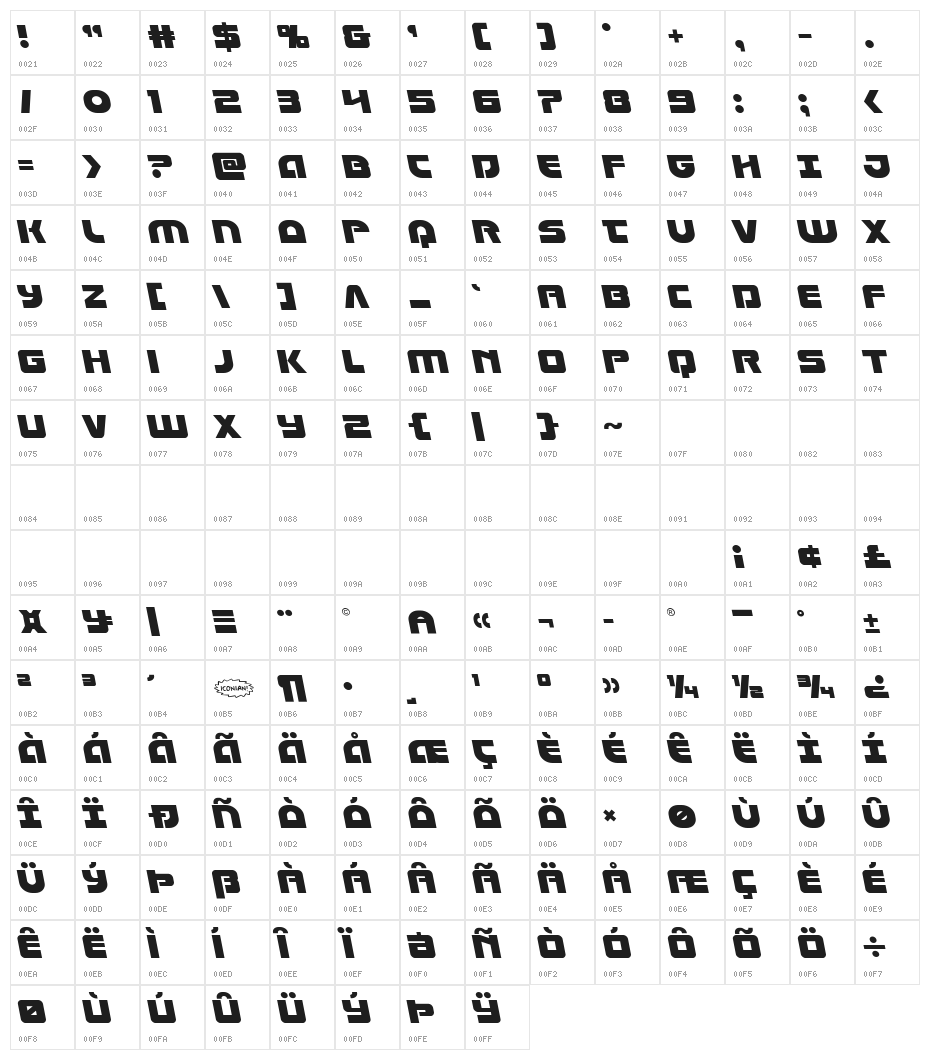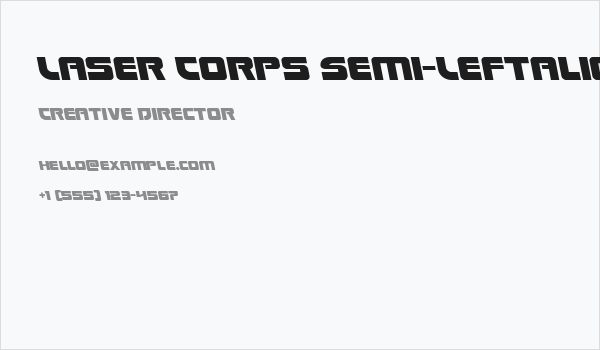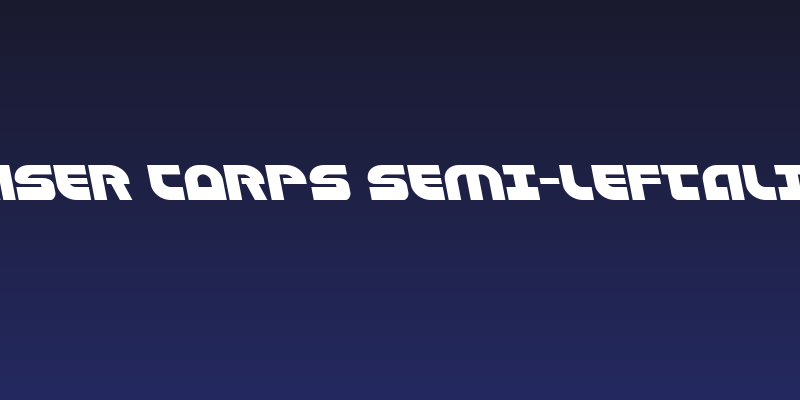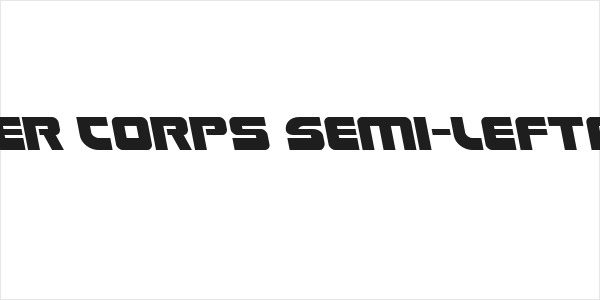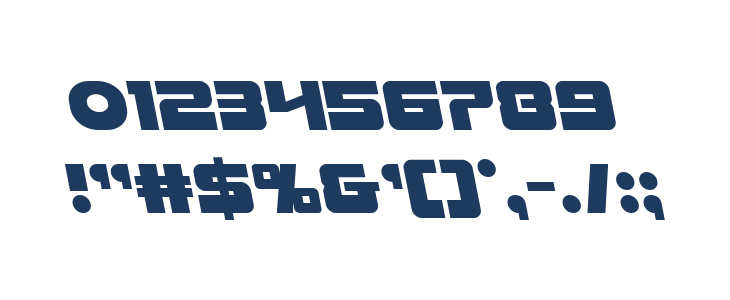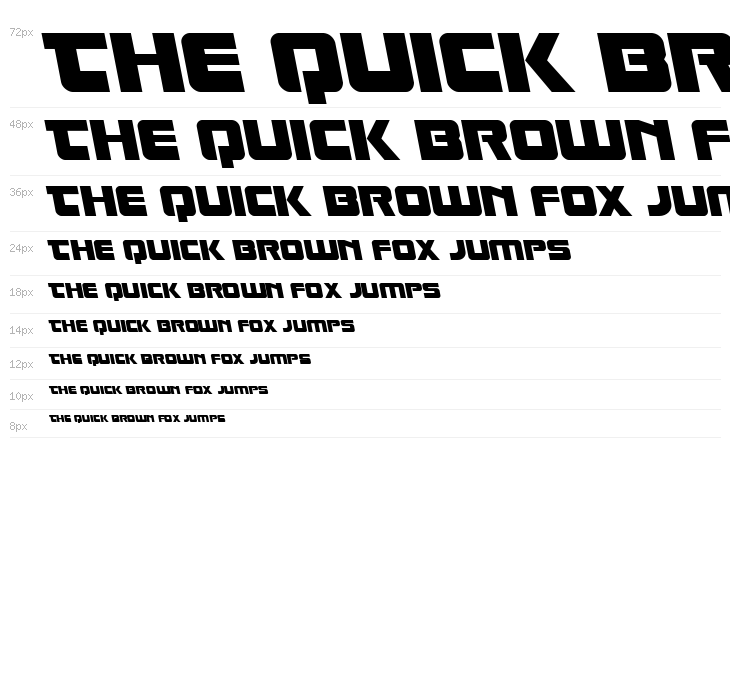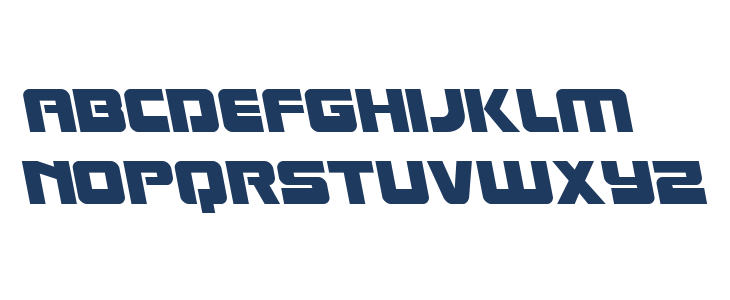
Laser Corps Semi-Leftalic Font
Laser Corps Semi-Leftalic Description
This font features a bold, futuristic design with a semi-italic slant, giving it a dynamic and forward-moving appearance. The characters are wide and blocky, with a geometric structure that emphasizes strength and modernity. The uppercase and lowercase letters maintain a consistent style, with sharp angles and clean lines. The numbers and special characters follow the same bold and angular theme, making them highly legible and impactful. This font is ideal for projects that require a strong, modern aesthetic.
| Proposed Projects | Ideal for technology branding, sci-fi posters, video game titles, and modern logos. |